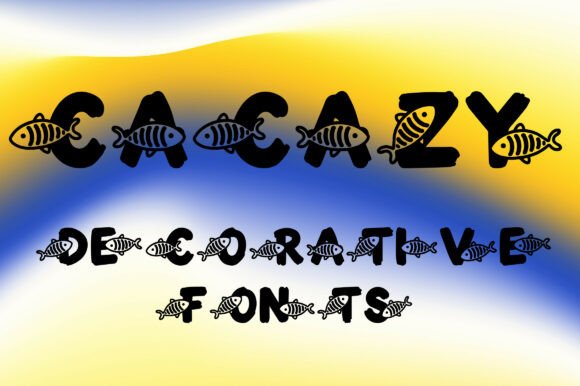
The Ultimate Guide to CACAZY Font: Adding a Splash of Oceanic Fun to Your Designs
I’ll never forget the time I was working on a project for a children’s beach-themed party, and I just couldn’t find the right font to capture the playful vibe I was going for. The client wanted something that would make their invitations and posters stand out, but everything I tried seemed either too boring or too over-the-top. That’s when I stumbled upon the CACAZY Decorative Fish Style Fonts, and let me tell you, it was a game-changer! 🎉
An Honest Review of CACAZY Font
- ✨ The playful, fish-inspired design that adds a fresh touch to any project
- ✅ The font’s versatility – perfect for logos, branding, posters, invitations, packaging, and more
- 🌟 The inclusion of uppercase English letters A–Z and numbers 0–9, providing endless creative possibilities
- 🎨 The ability to add a lively and imaginative touch to your designs
While CACAZY Font is an amazing addition to any design project, there are a few things to keep in mind:
- ⚠️ The font is limited to uppercase English letters and numbers, so make sure to plan your design accordingly
- 🤔 Some users may find the font a bit too playful for certain projects, but this can also be seen as a pro depending on your design goals
The Designer Inspiration Behind CACAZY Font
The story goes that the creator of CACAZY Font was inspired by a childhood spent by the ocean, fascinated by the vibrant colors and playful shapes of marine life. This font is a reflection of that joy and wonder, distilled into a unique and versatile typeface.
| Font Name | Cacazy Font |
| Author | MOMAT THIRTYONE |
Q: Is CACAZY Font suitable for body text?
A: While CACAZY Font is primarily designed for display purposes, it can be used for short paragraphs of body text if you want to add a playful touch.